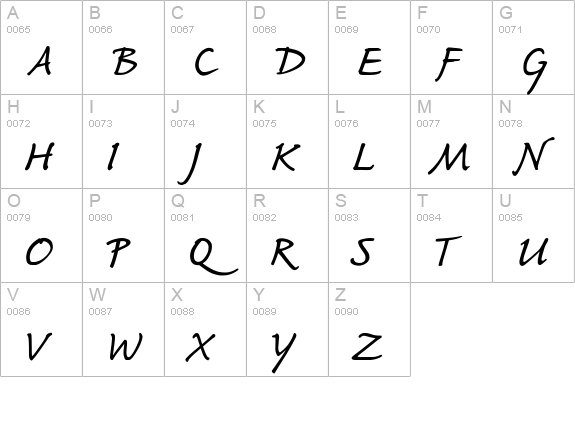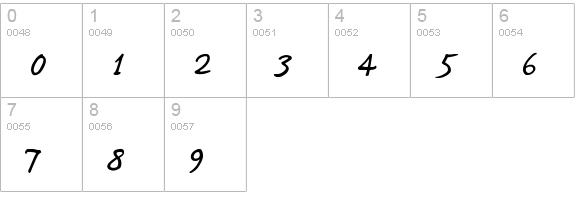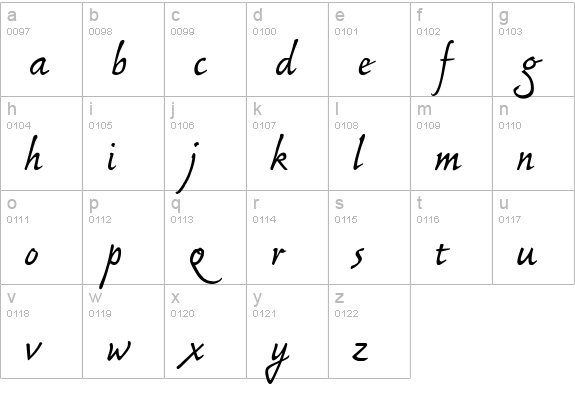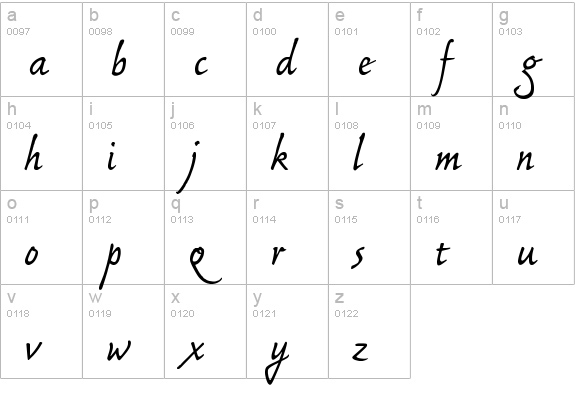
AIBouwsmaScript Font Details
AIBouwsmaScript is a beautifully elegant and versatile font that exudes sophistication and charm. This script font features flowing lines and delicate curves, making it perfect for adding a touch of class to any project. Whether you're designing wedding invitations, branding materials, or social media graphics, AIBouwsmaScript is sure to impress with its graceful and stylish appearance. The best part? AIBouwsmaScript is completely free to download at FontsMarket.com! This means you can enjoy the beauty and versatility of this stunning font without having to spend a dime. So why wait? Download AIBouwsmaScript today and elevate your designs to the next level with this exquisite typeface.